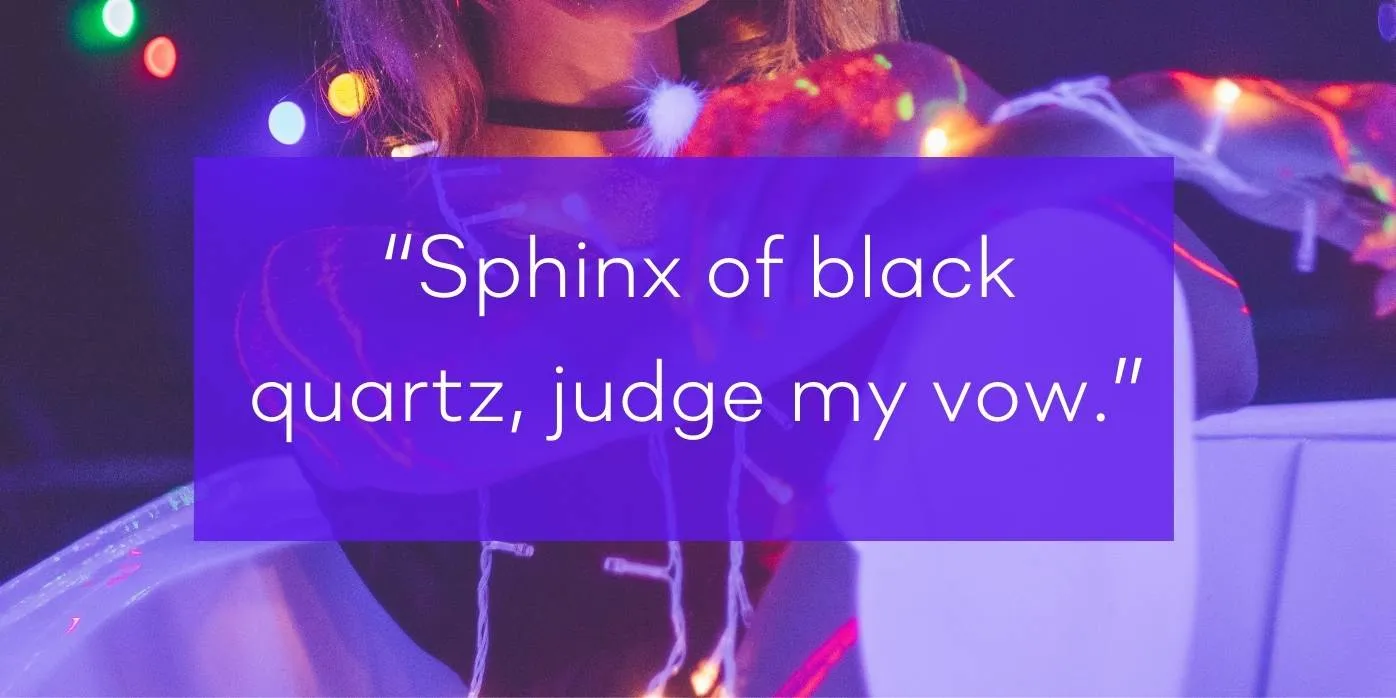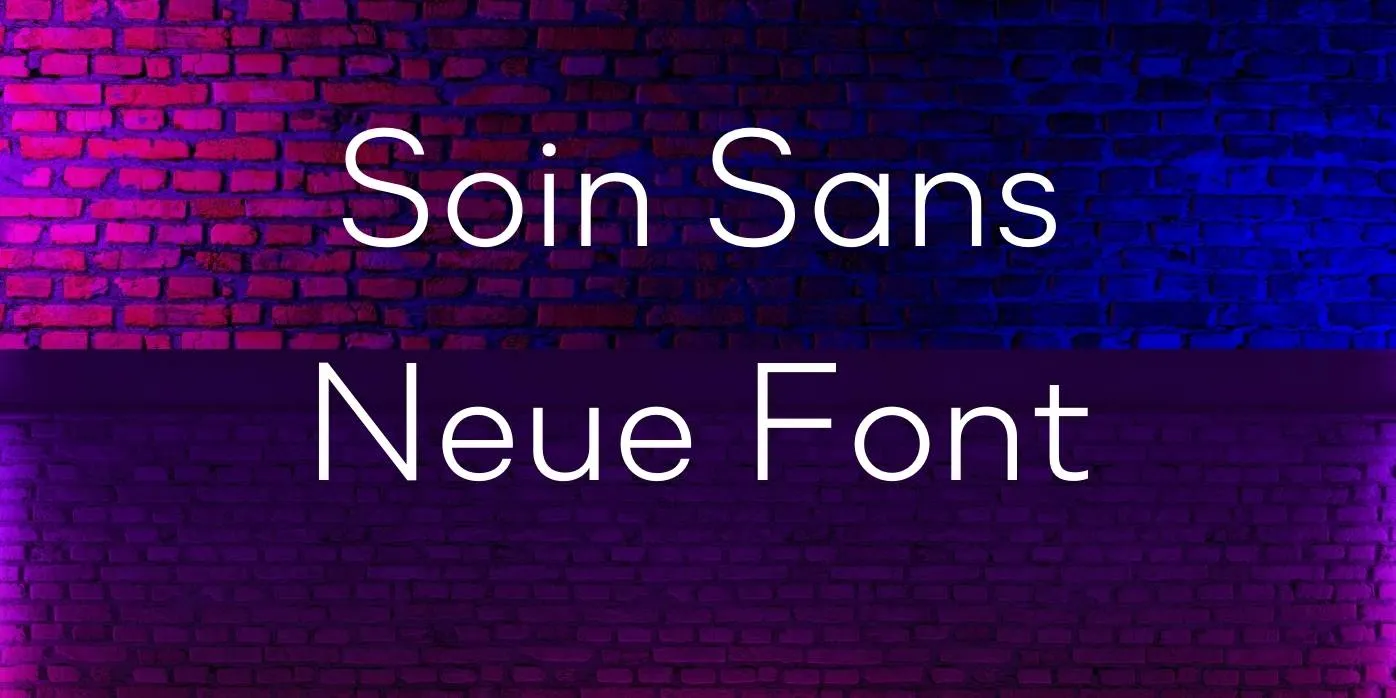
Soin Sans Neue Font
Here we are consulting on s tremendous software that has the name Soin Sans Neue Font. This classy font was designed by Stawix Ruecha. It is perfect for Canva, and Adobe Photoshop. It belongs to the Sans-Serif typeface.
FF Mark Font is alternative to this stunning font family. That is why it recommends this software for people who need to write a lot. It makes your work look more professional and it is very easy to use. This awesome typeface consists of many ligatures and swashes.